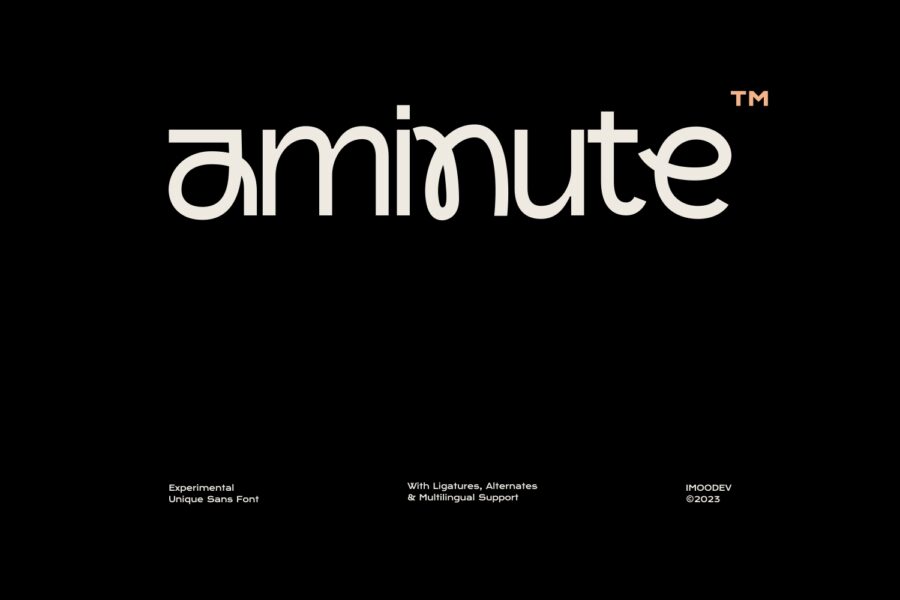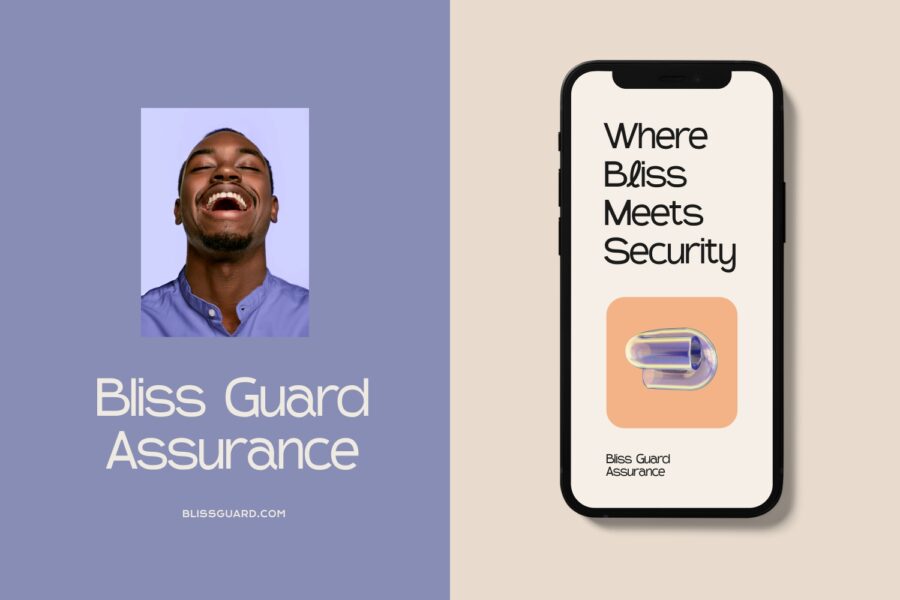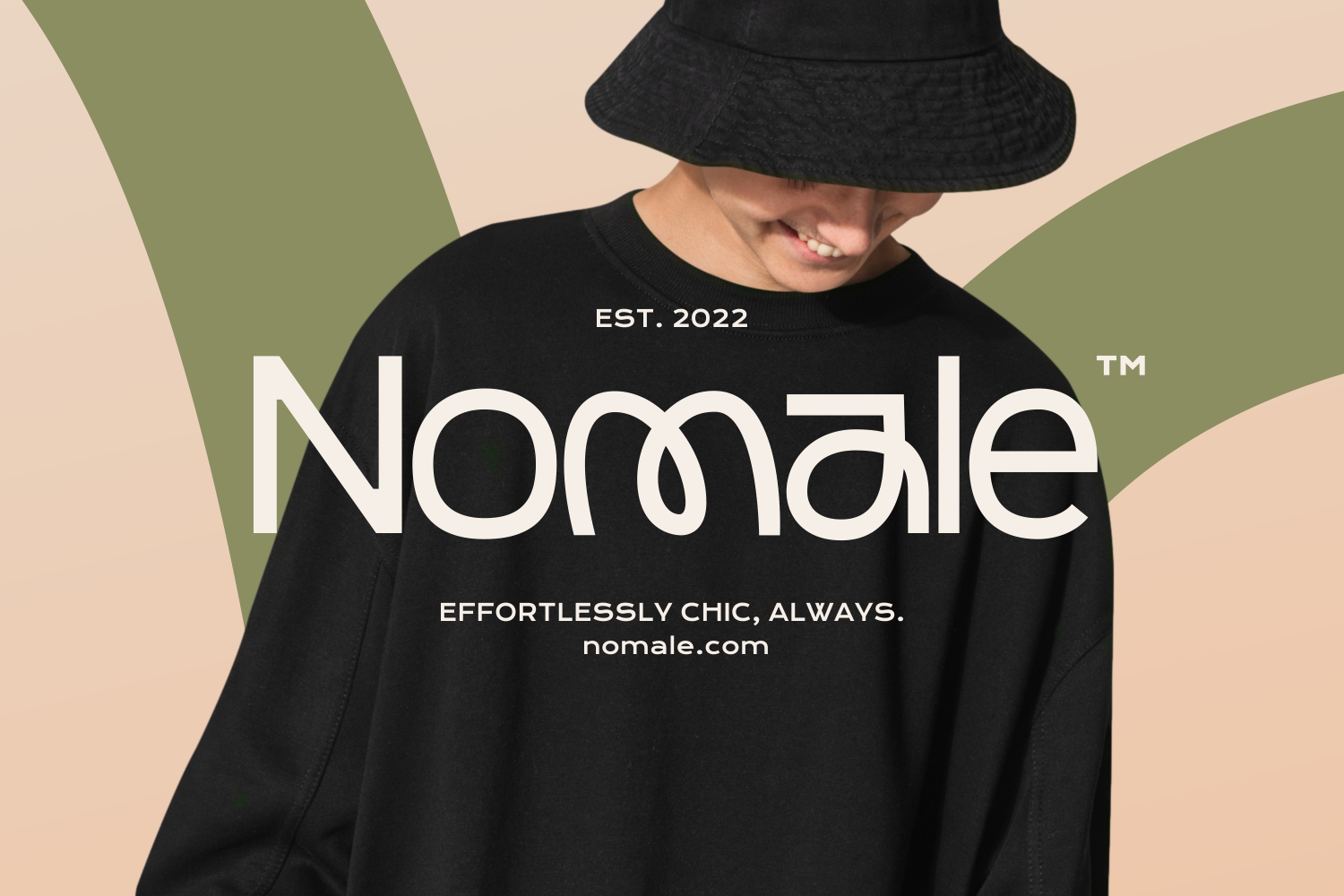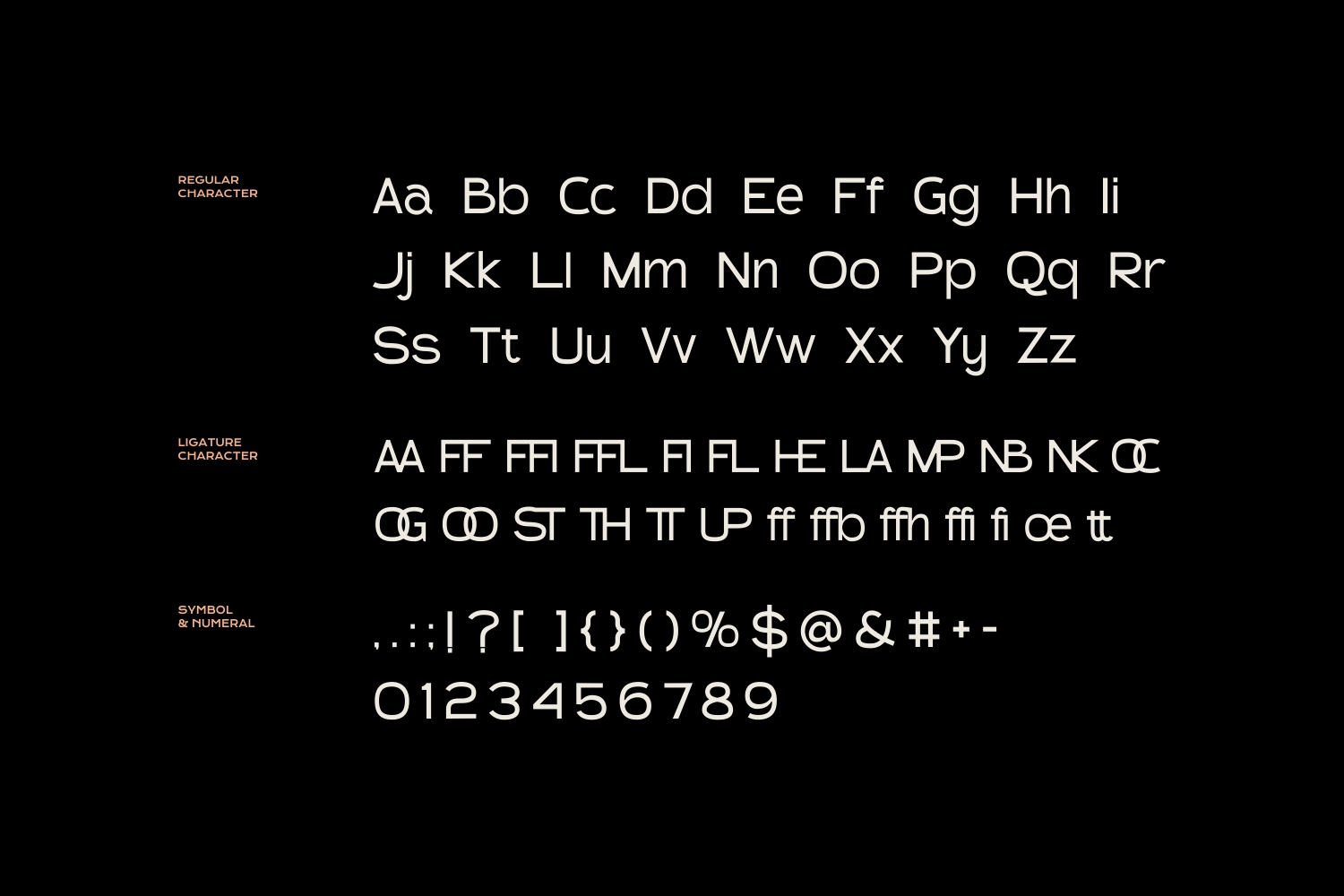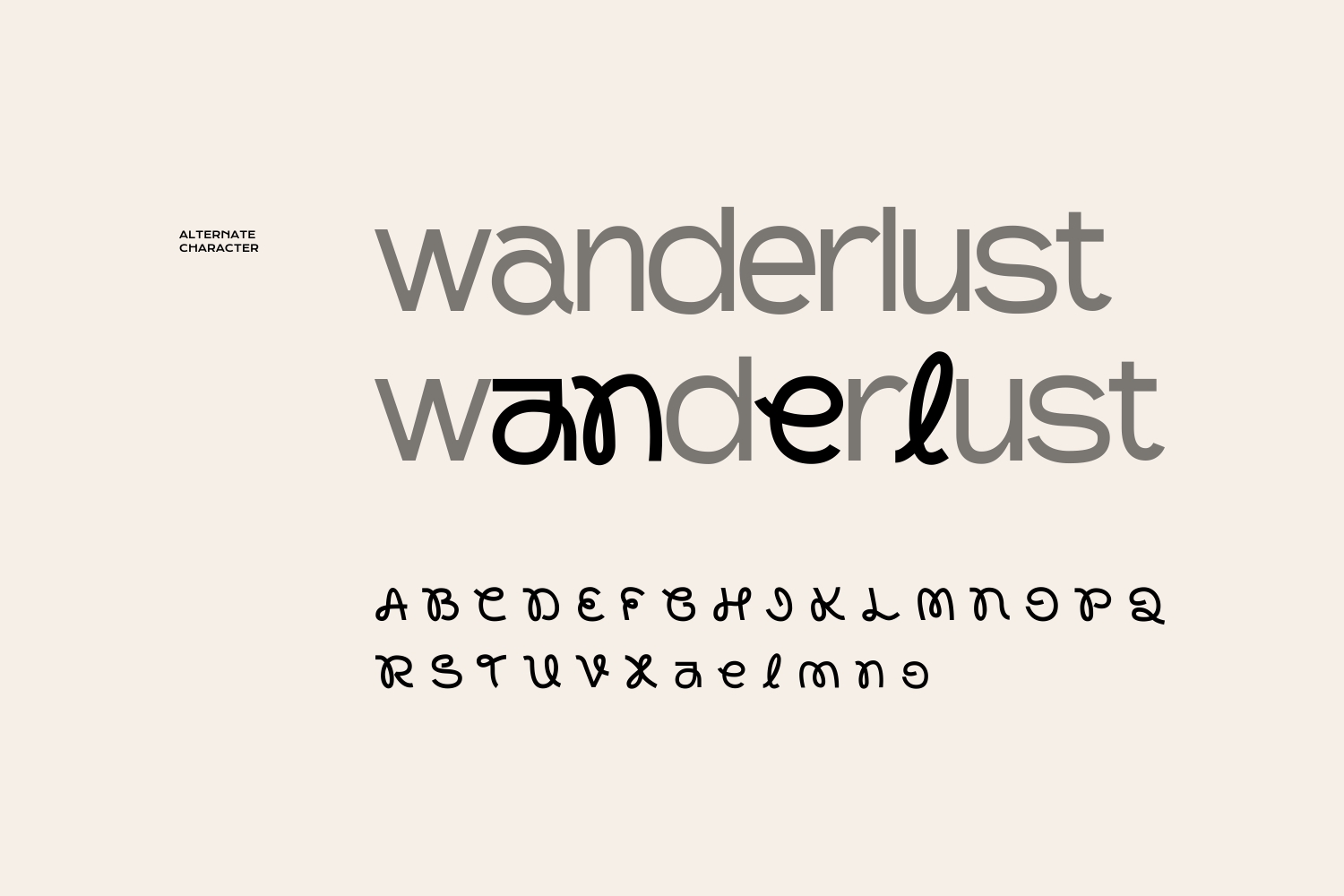
Aminute is an experimental sans serif typeface that blends modern minimalism with playful typographic twists. Its sleek, geometric structure is enhanced by creative ligatures and alternates, giving it a distinctive personality that stands out in branding, editorial design, and digital platforms. The font’s balanced proportions and smooth curves make it both visually engaging and highly versatile for various design needs.
With extensive ligature options, alternate letterforms, and multilingual support, Aminute offers endless creative possibilities for designers. Perfect for bold headlines, stylish logos, and unique advertising visuals, this font adds a touch of sophistication while keeping a contemporary and approachable look. Whether used in print or digital media, it delivers a fresh and memorable typographic style.